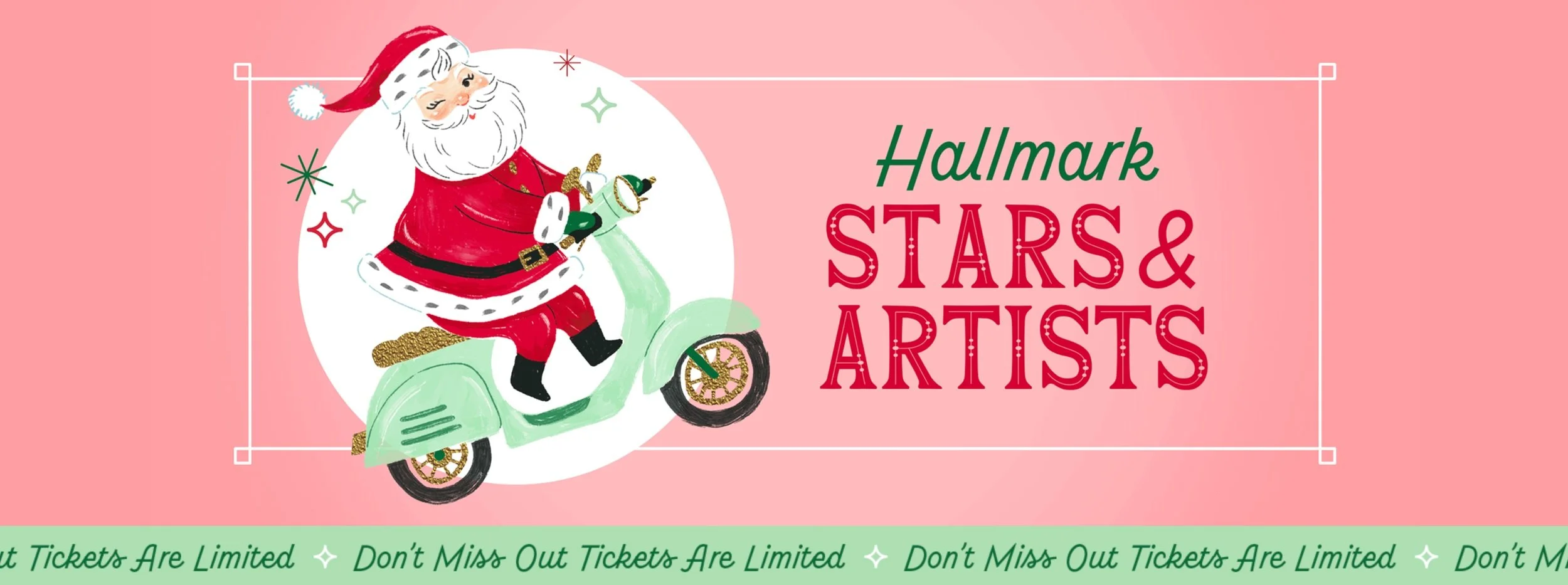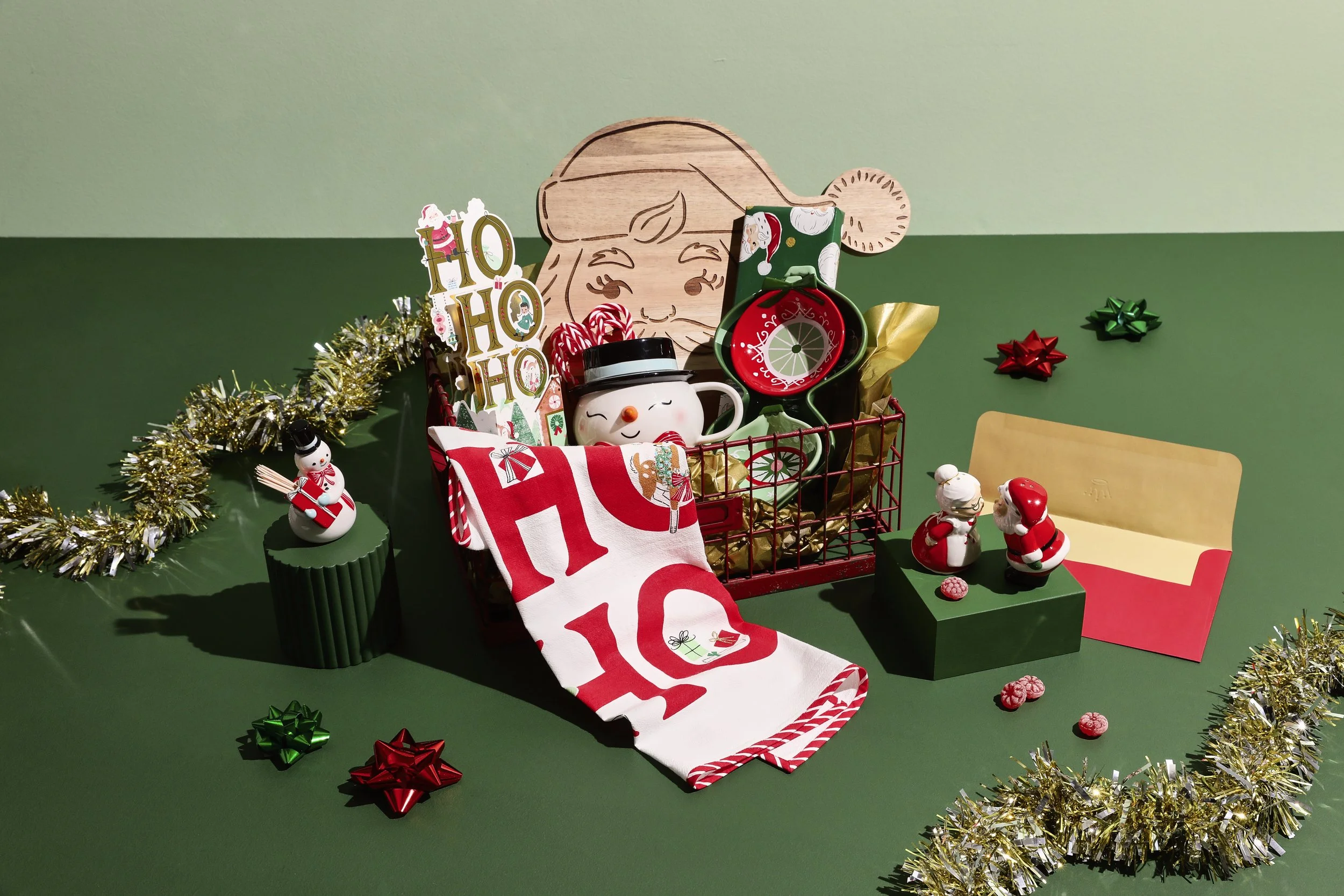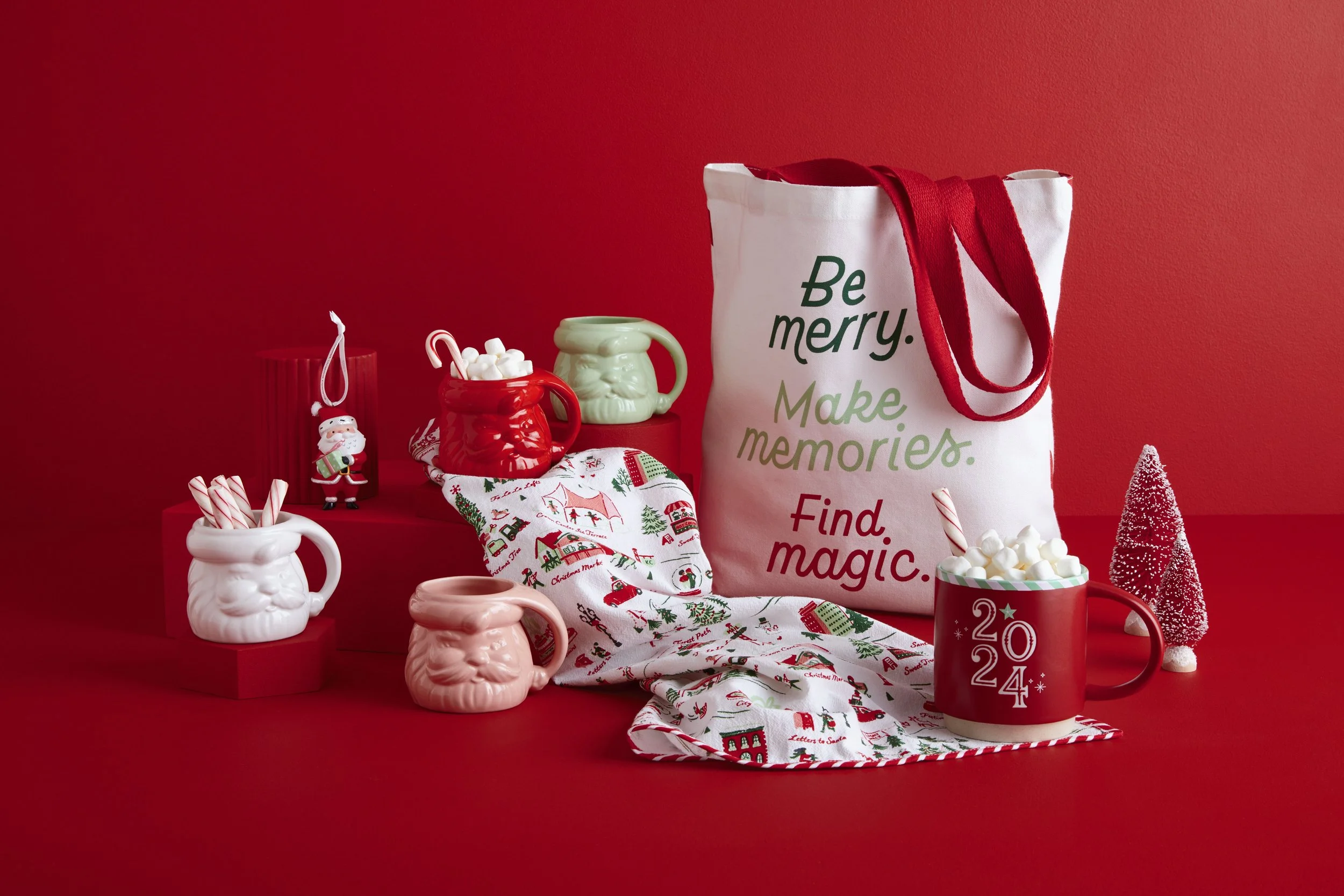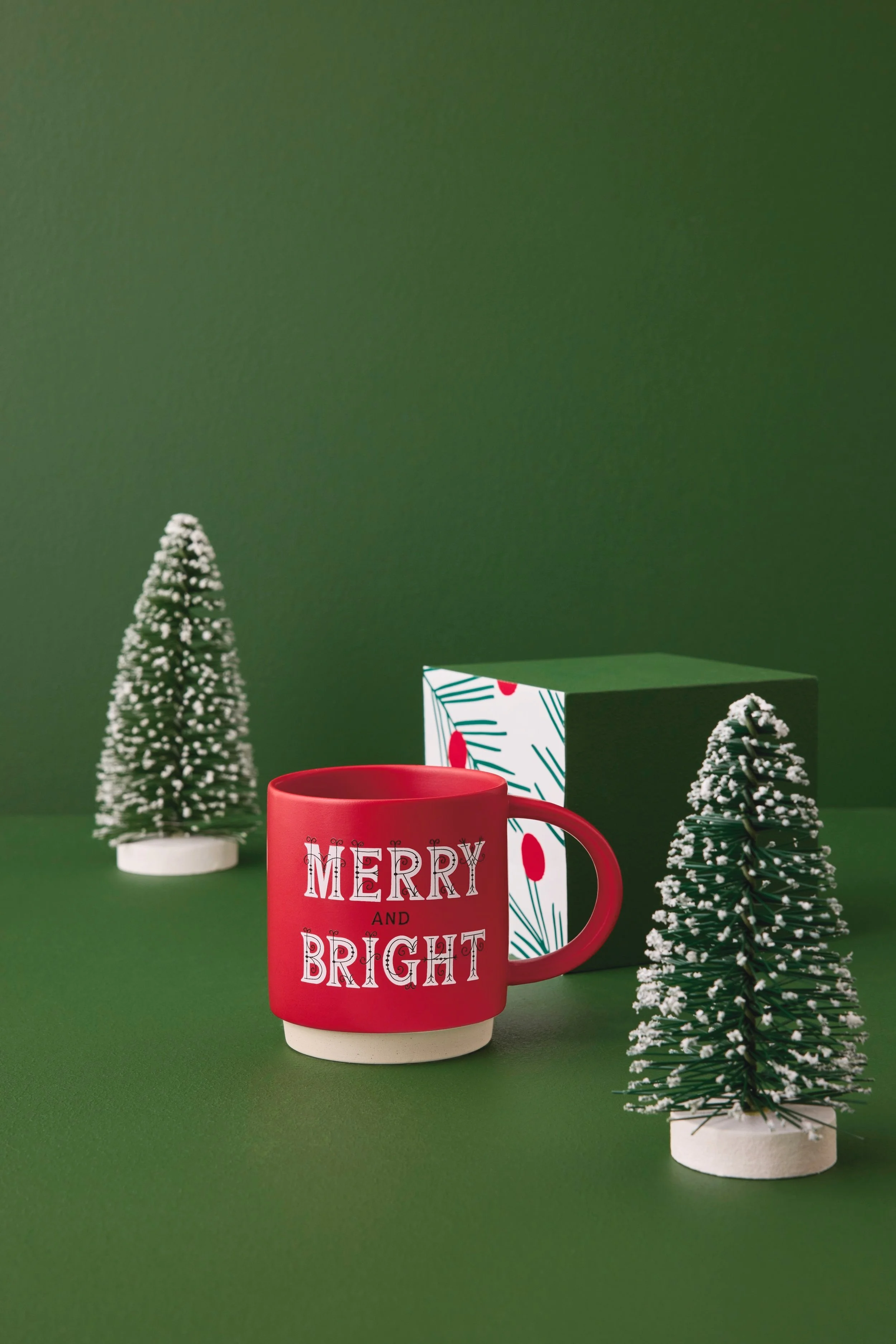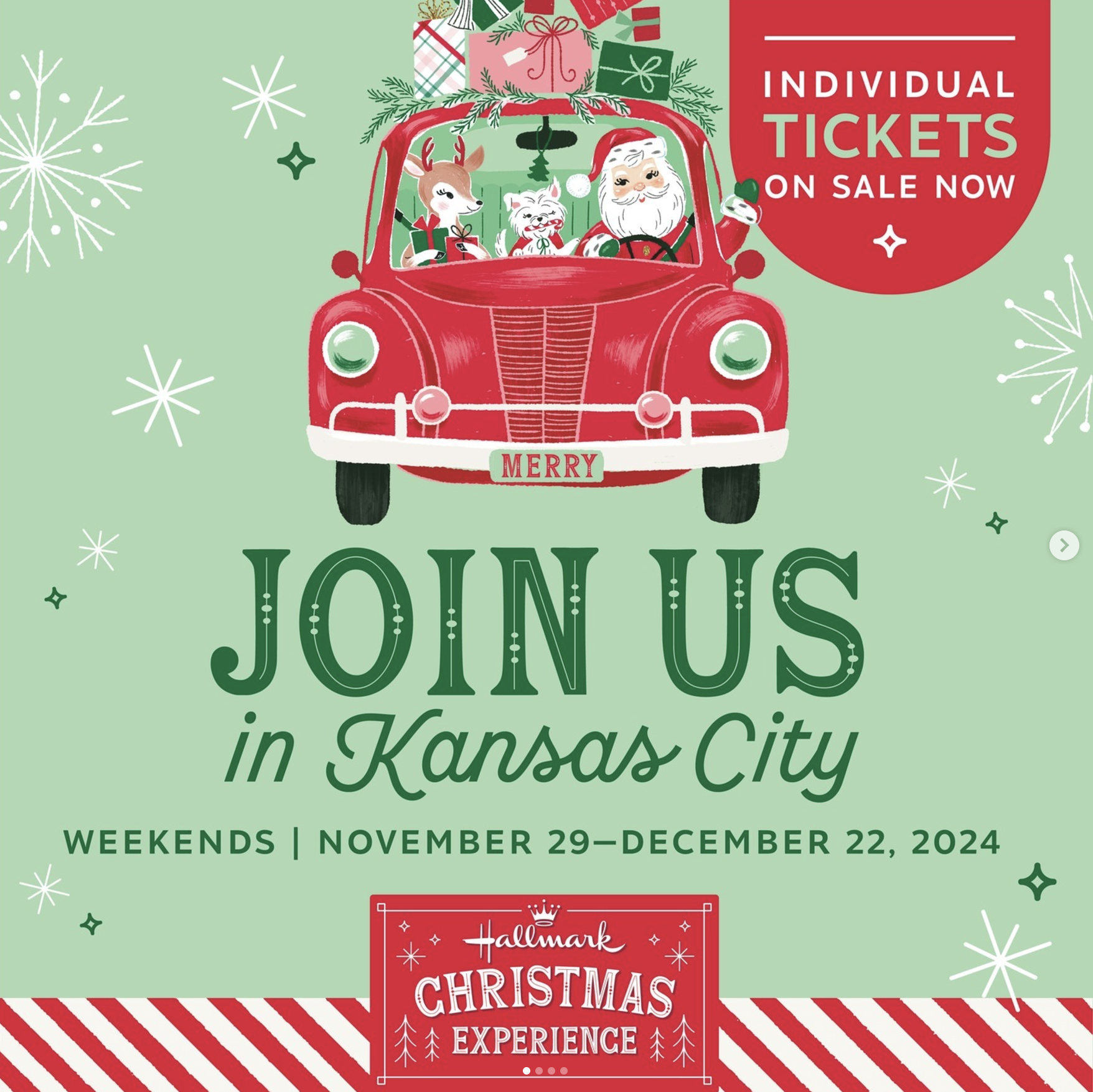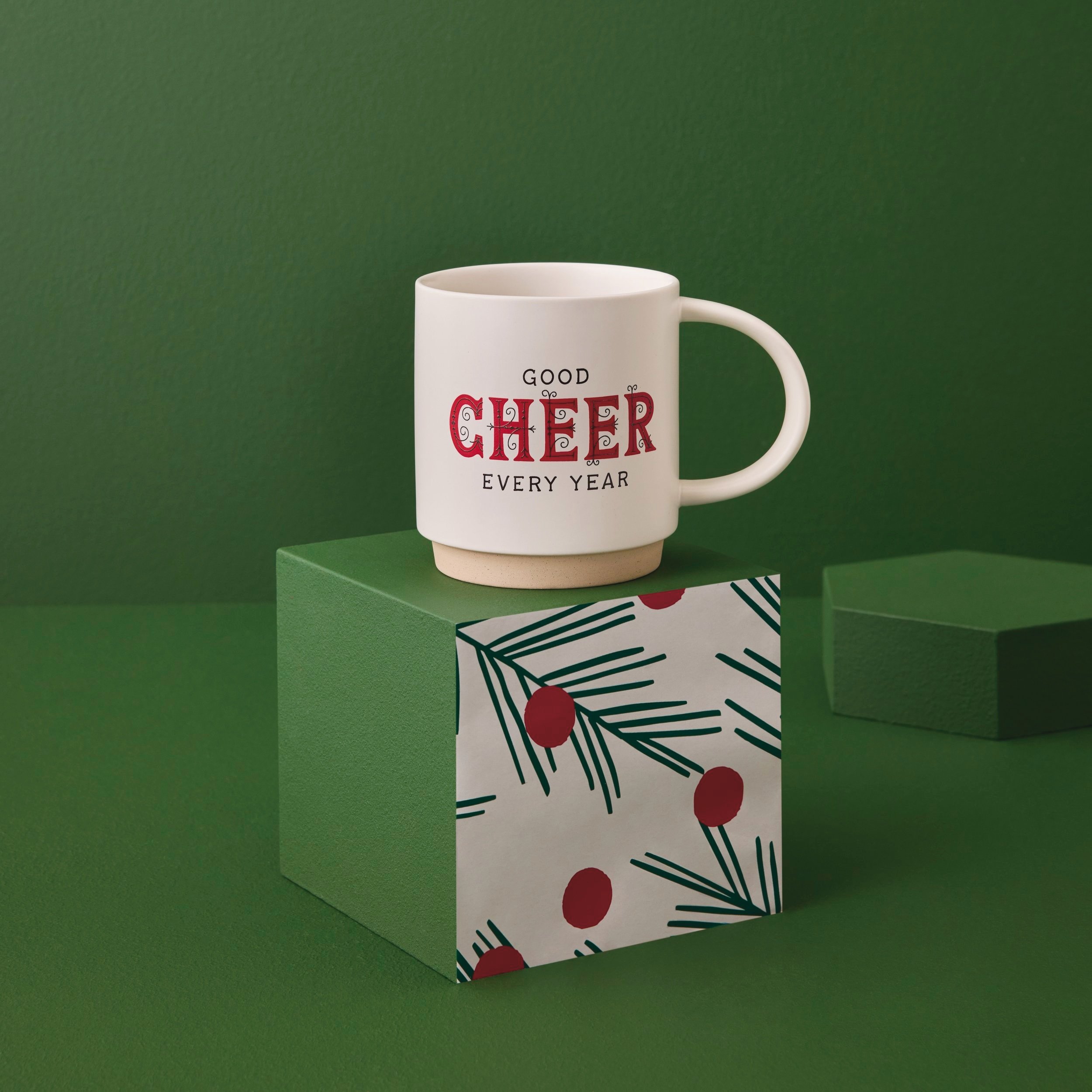
Countdown to Christmas
Sheyda’s Illustrations were also utilized by Hallmark Keepsake Ornament Artist Tim Bodendistal. I was able to draw the matching numbers for the existing lettering title style and help with the layout of the “Countdown to Christmas” book. I purchased a set of these for my son and they are perfect for kids! I can’t wait to fill with treats and re-use year after year.
Hallmark Christmas Experience
This holiday season was the debut of the Hallmark Christmas Experience at Crown Center in Kansas City, Missouri. For months (or maybe even over a year!) Hallmark has been working on bringing this event to life and I was so excited to have a small impact on the lettering and design (as they utilized a lot of Sheyda and I’s holiday work) which included supporting a collaborative mural, designing a commemorative t-shirt, lettering for gift product and seeing my friend Laura Ballard’s font “Snickerdoodle” that I had embellished all over the event!
Holiday Lettering for Hallmark
Seeing holiday product arrive in stores has been extra exciting this year as I got the chance to collaborate with the talented illustrator Sheyda Best on a style guide that was utilized for gifts, greetings, marketing and more this season! Here are a few photos of the adorable gift product designed by Lauren Hale and the Hallmark Gifts team.